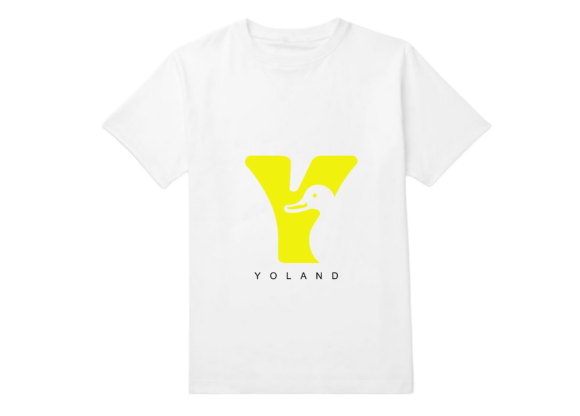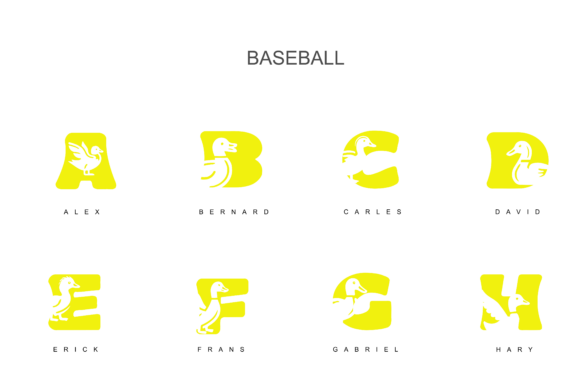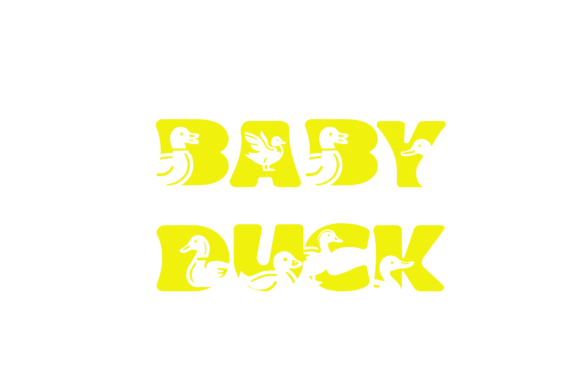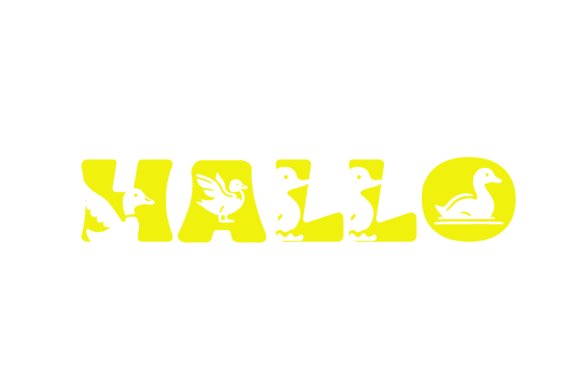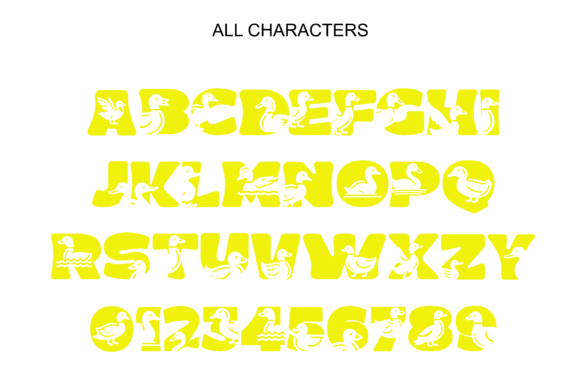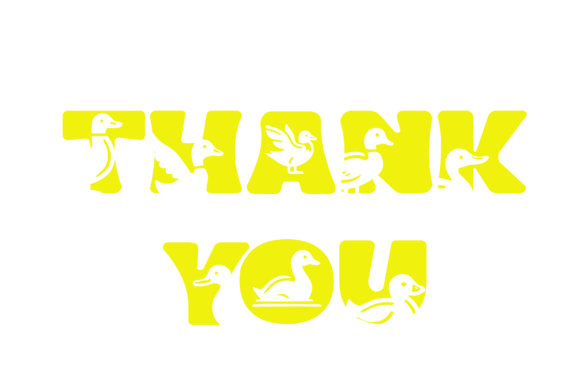
Introduction to Hi Duck Font Font
Fonts play a crucial role in design, and the Hi Duck Font font is a typeface that brings both character and versatility to any project. Whether you’re working on a branding project, a website, or a print design, the Hi Duck Font font offers a unique style that can elevate your work.
Venture into the enchanting realm of Hi Duck, an inventive font rich with boundless allure and infinite creative potential.
Team up with the Welcome Fairy on this fulfilling adventure, a skillfully crafted typographic tool devised to enhance your innate artistic flair, inject relentless vitality and provide a widespread canvas for your imagination to take flight Succumb to the undeniable draw of Hi Duck, as it engages with your artistic instincts, igniting an unmatched creative spark.
The Hi Duck Font font is more than just a typeface – it’s a design tool that helps you communicate your message with style and clarity. Its unique character set and versatile design make it suitable for a wide range of applications, from elegant invitations to bold headlines.
With its carefully crafted letterforms and balanced proportions, the Hi Duck Font font ensures readability and visual appeal across all mediums.
The Hi Duck Font font stands out with its unique design, exceptional readability, and versatility across various design applications.